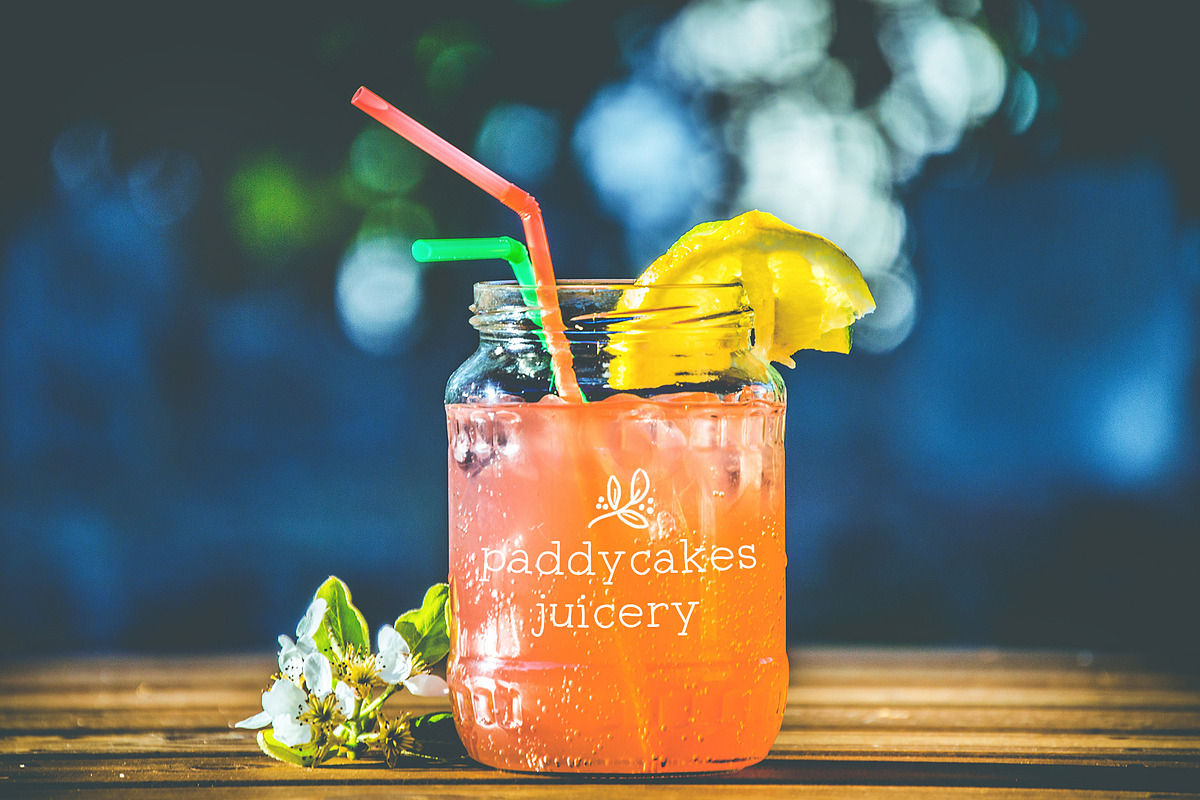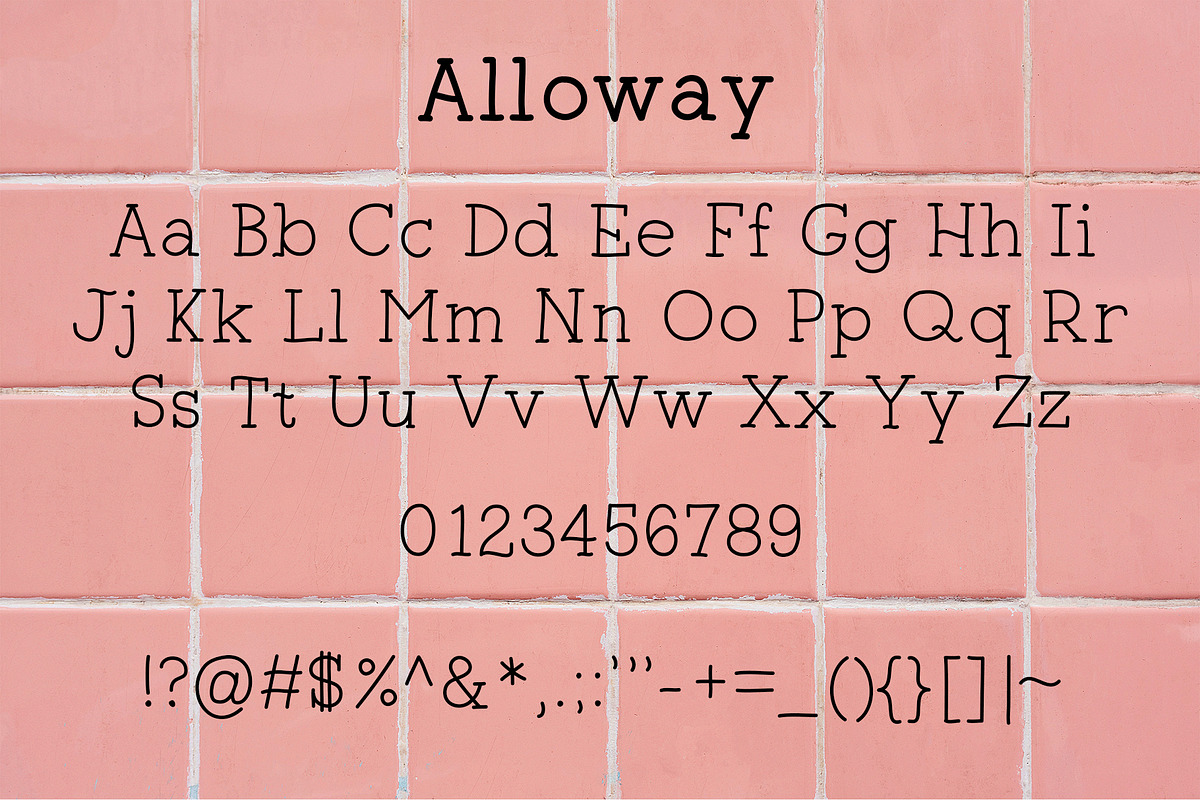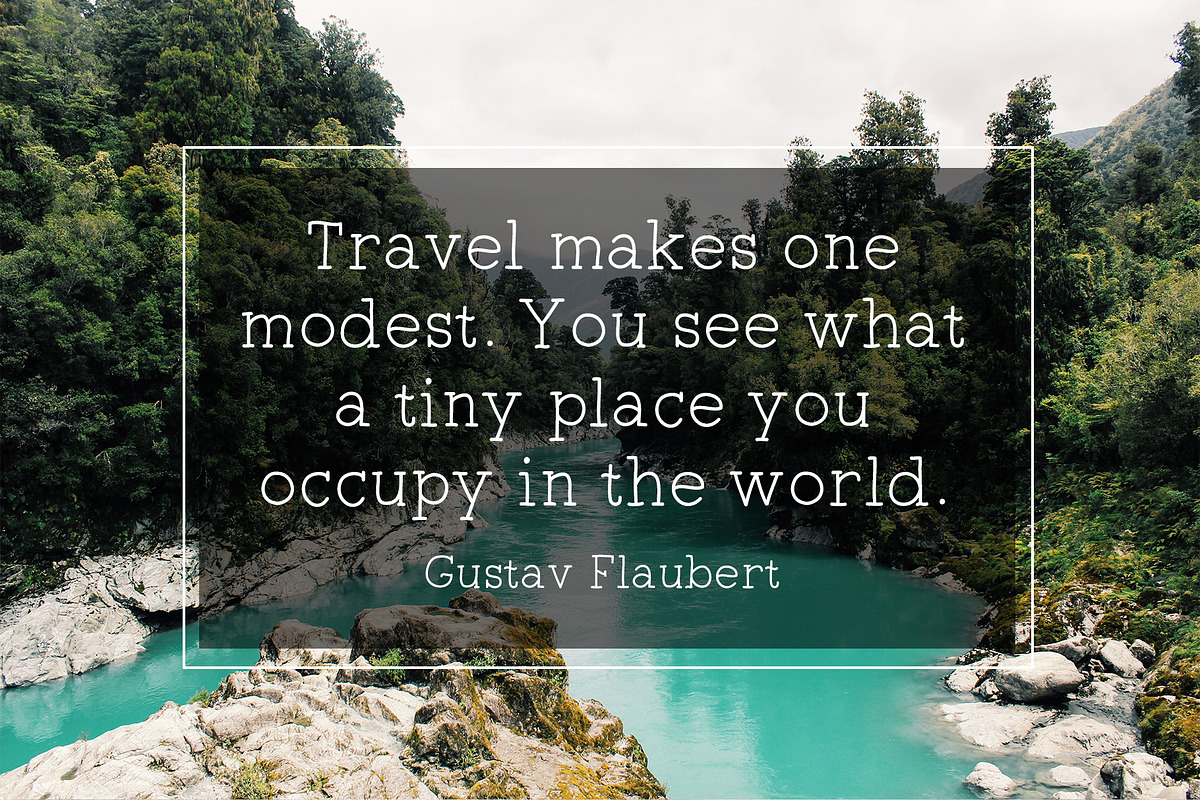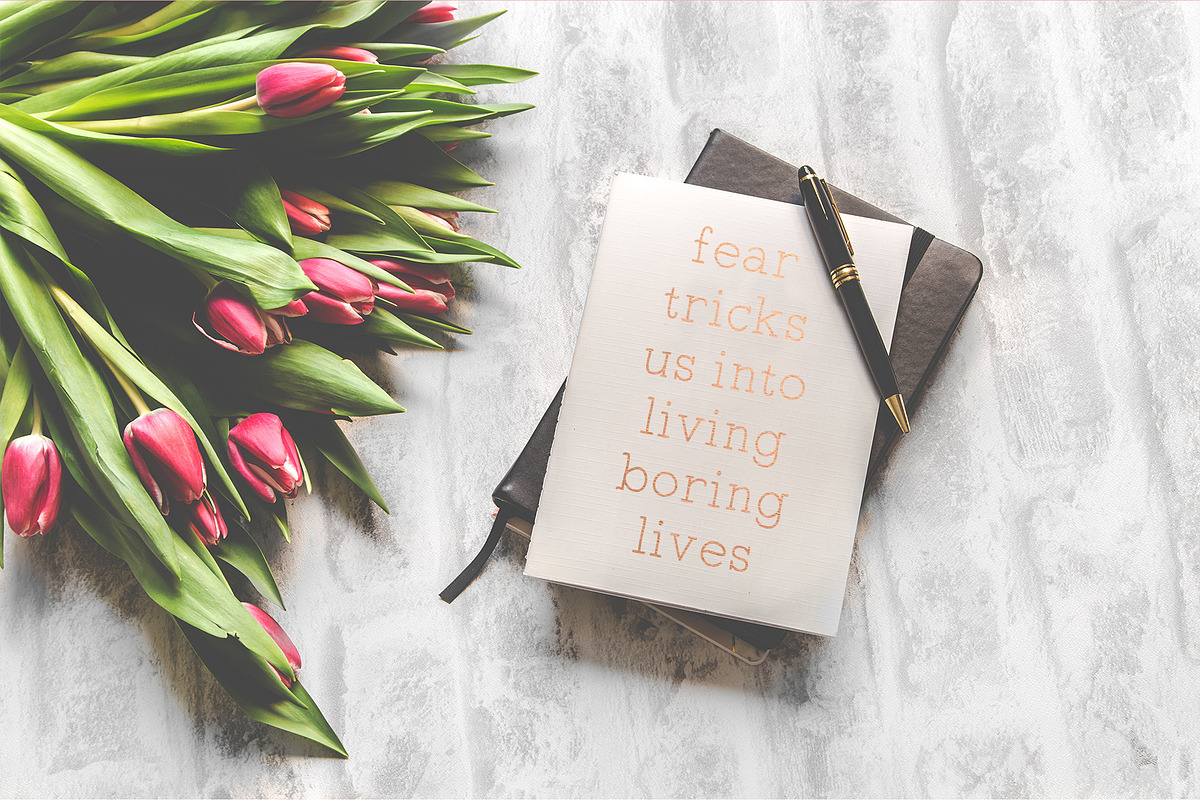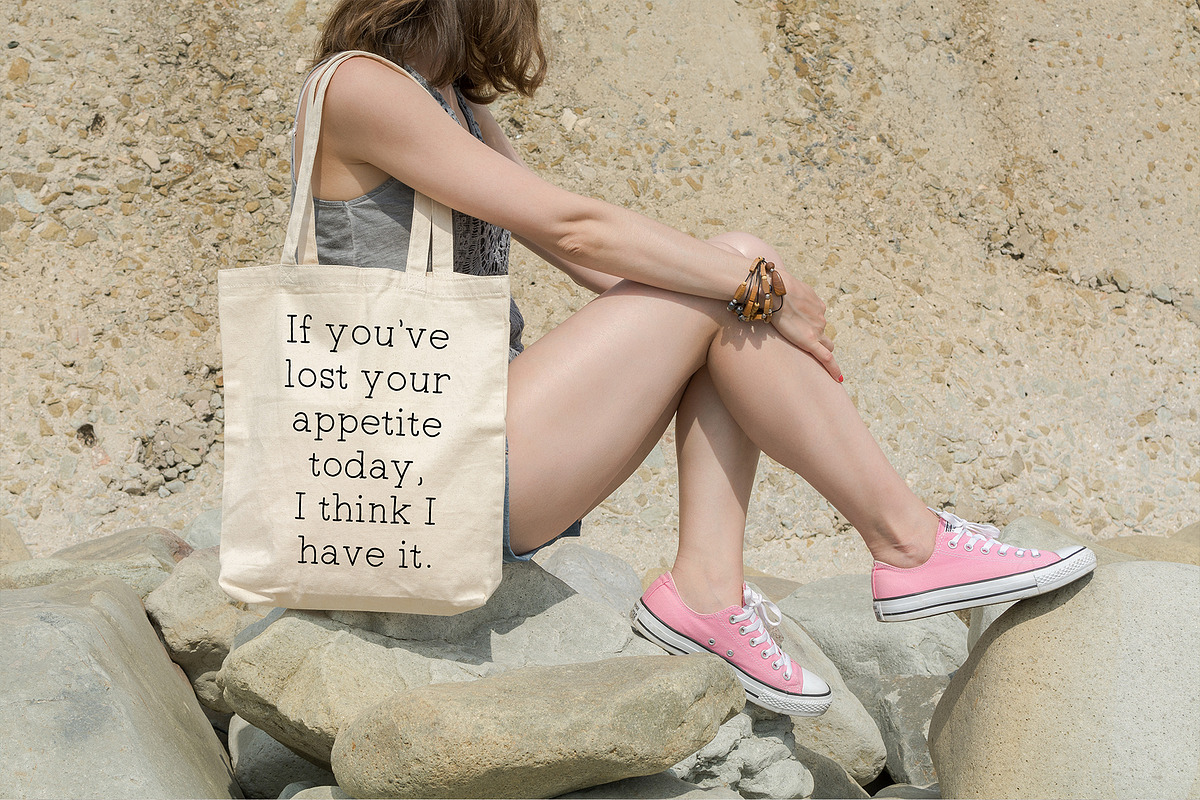
Alloway | Monoweight Serif Font
Alloway is a monoweight / monoline font. It's hand-lettered but super clean and tidy, so it looks playful without looking juvenile. It has rounded slab serifs and slight curves in its lines, giving it a relaxed look.